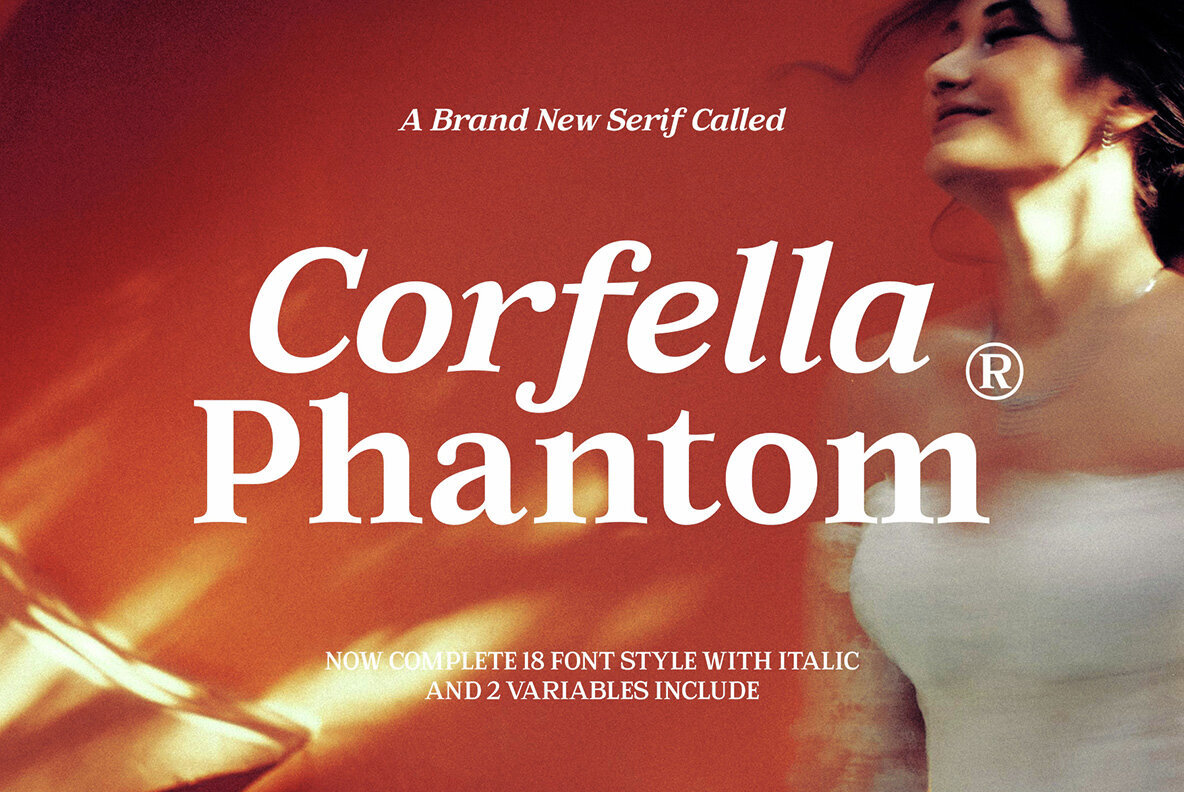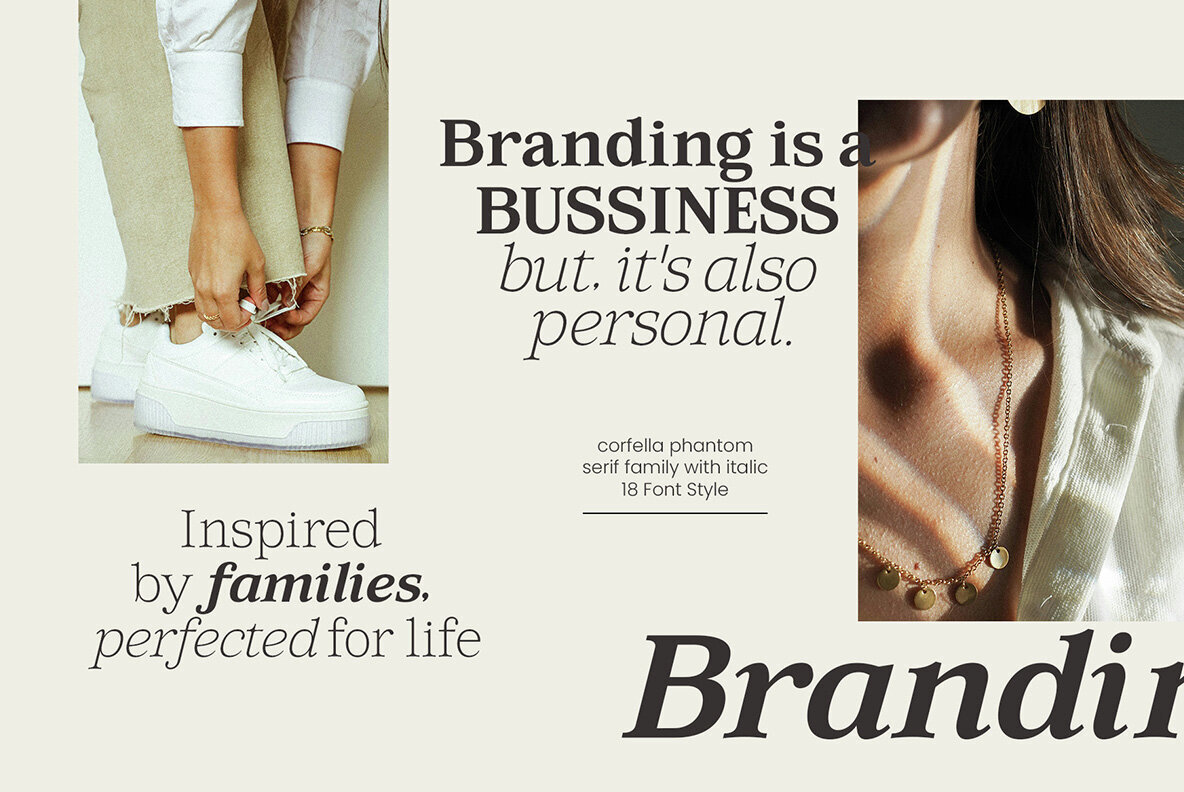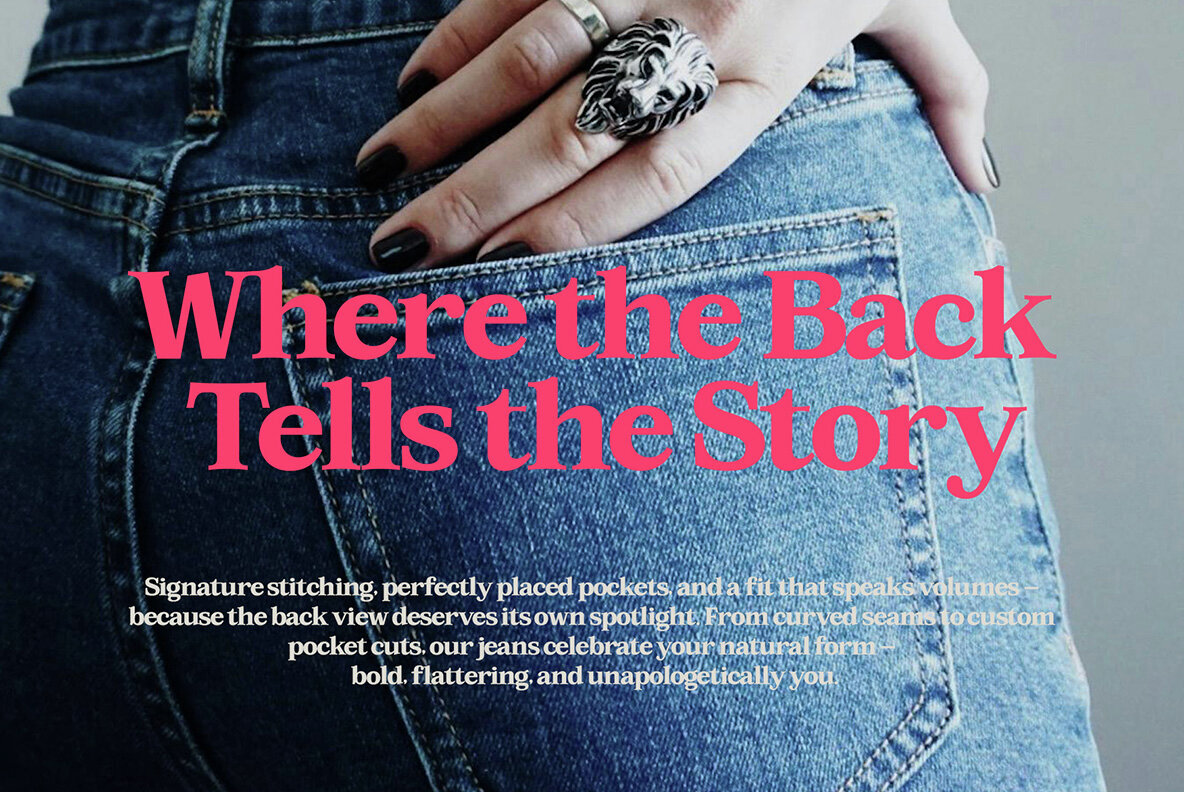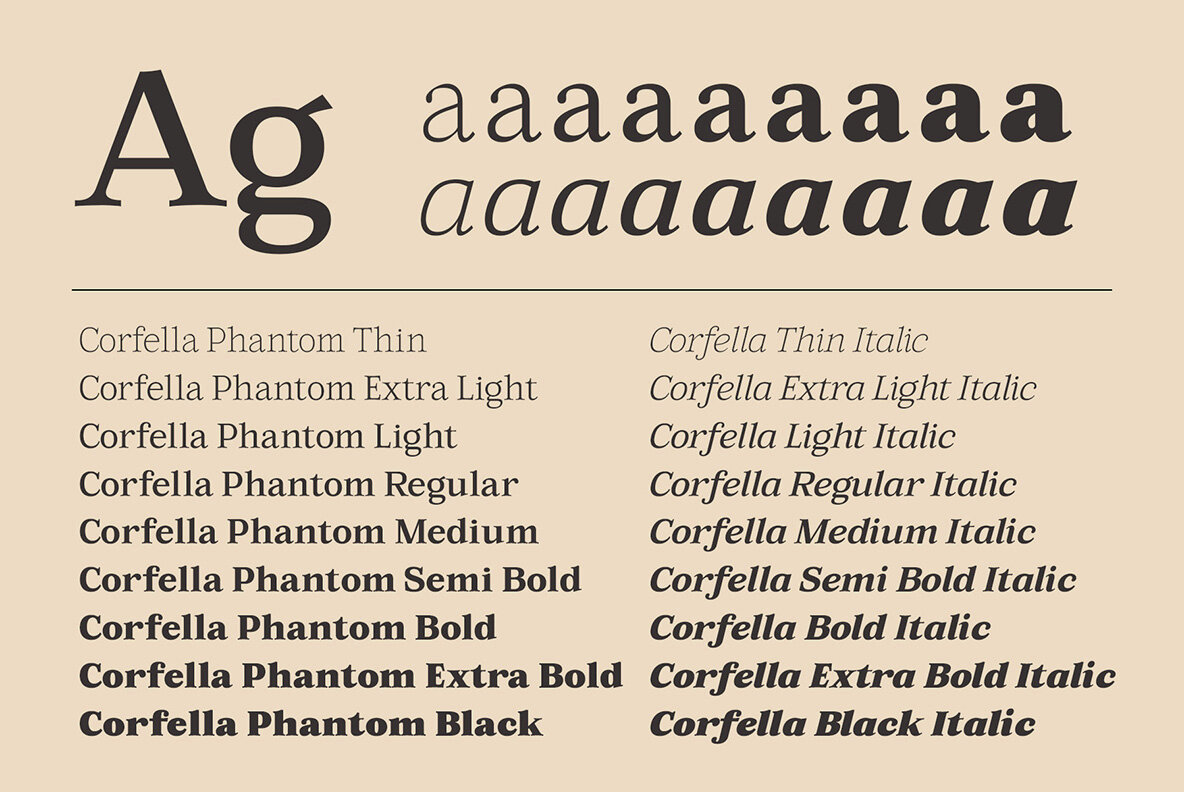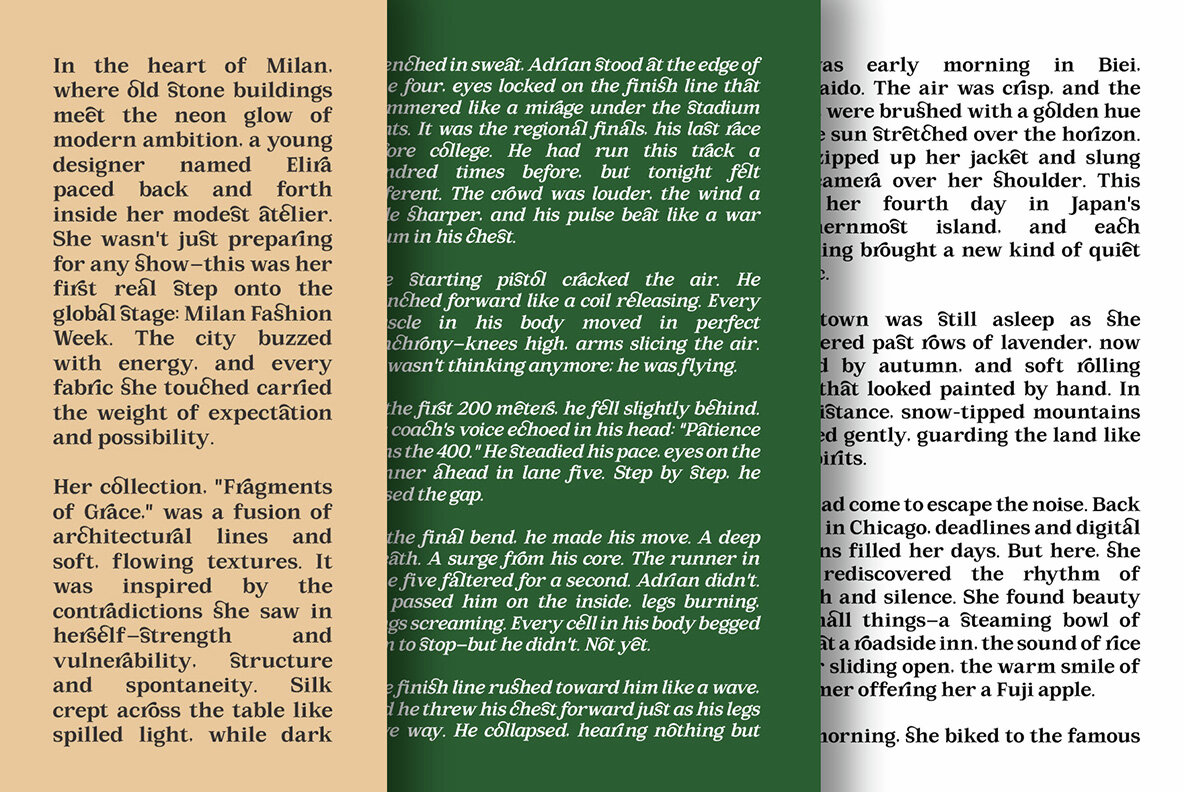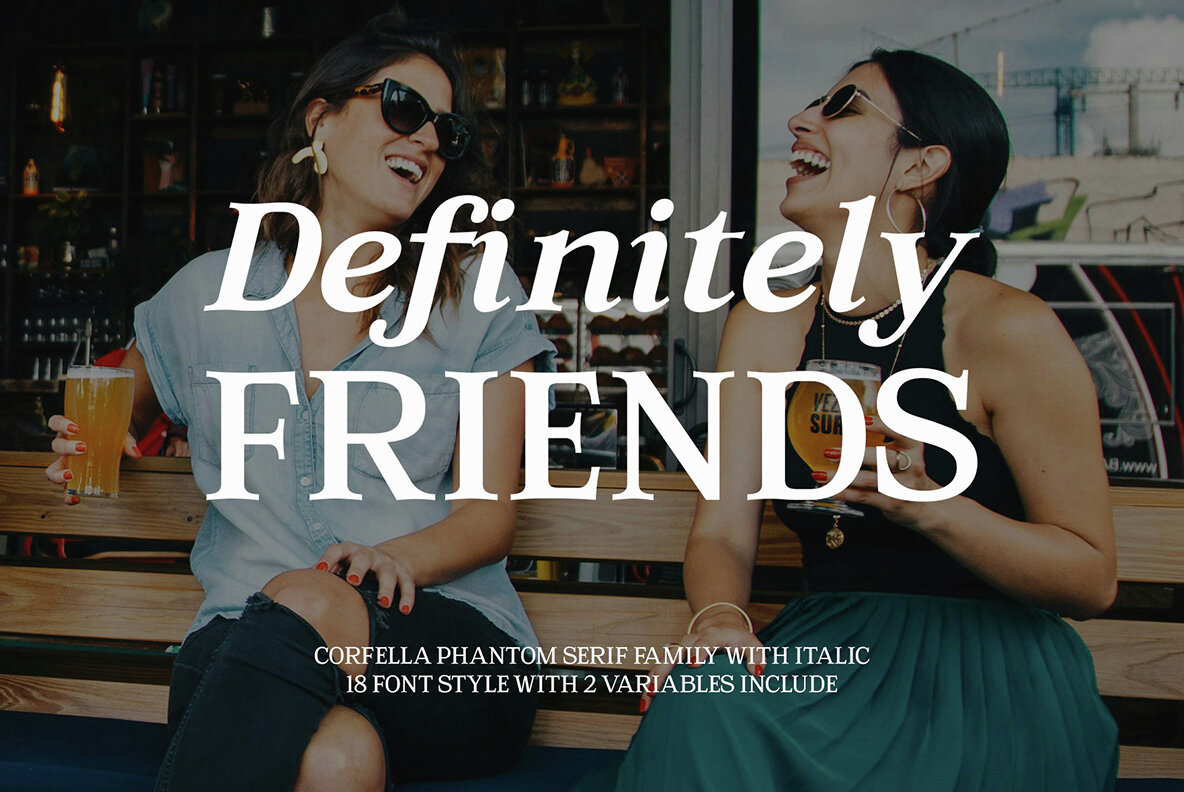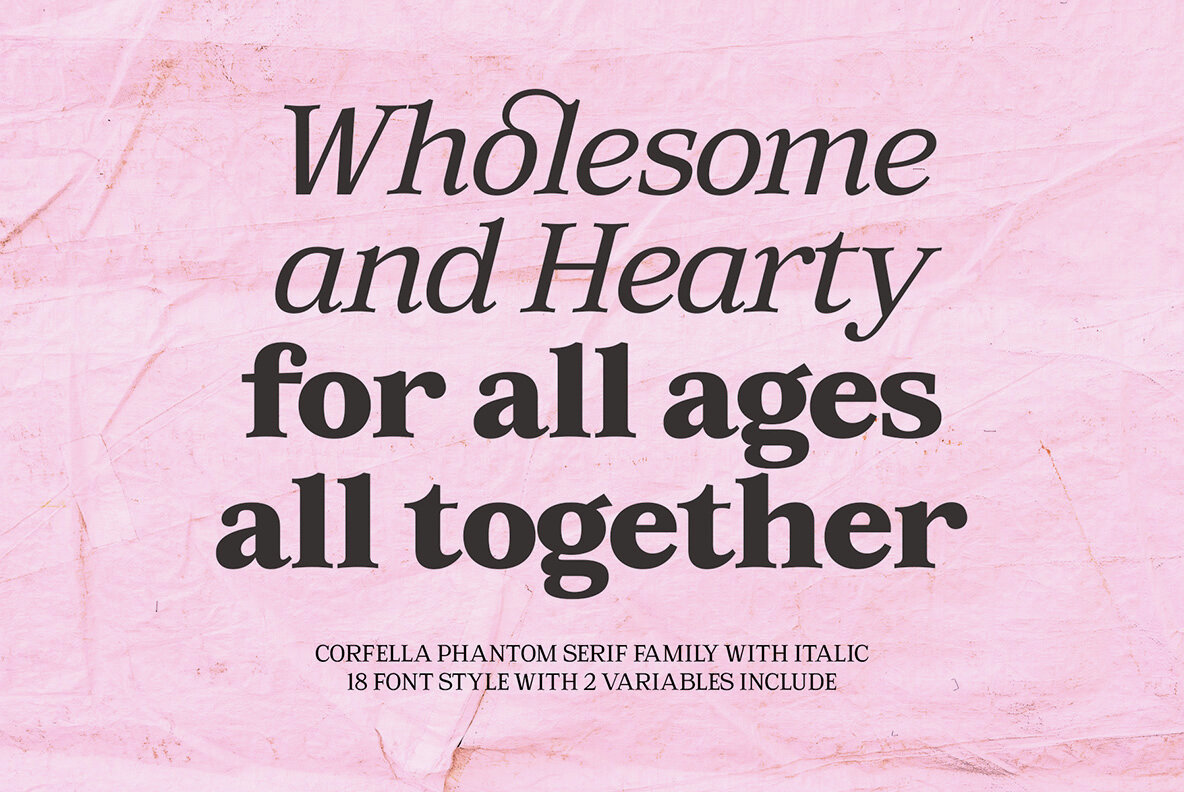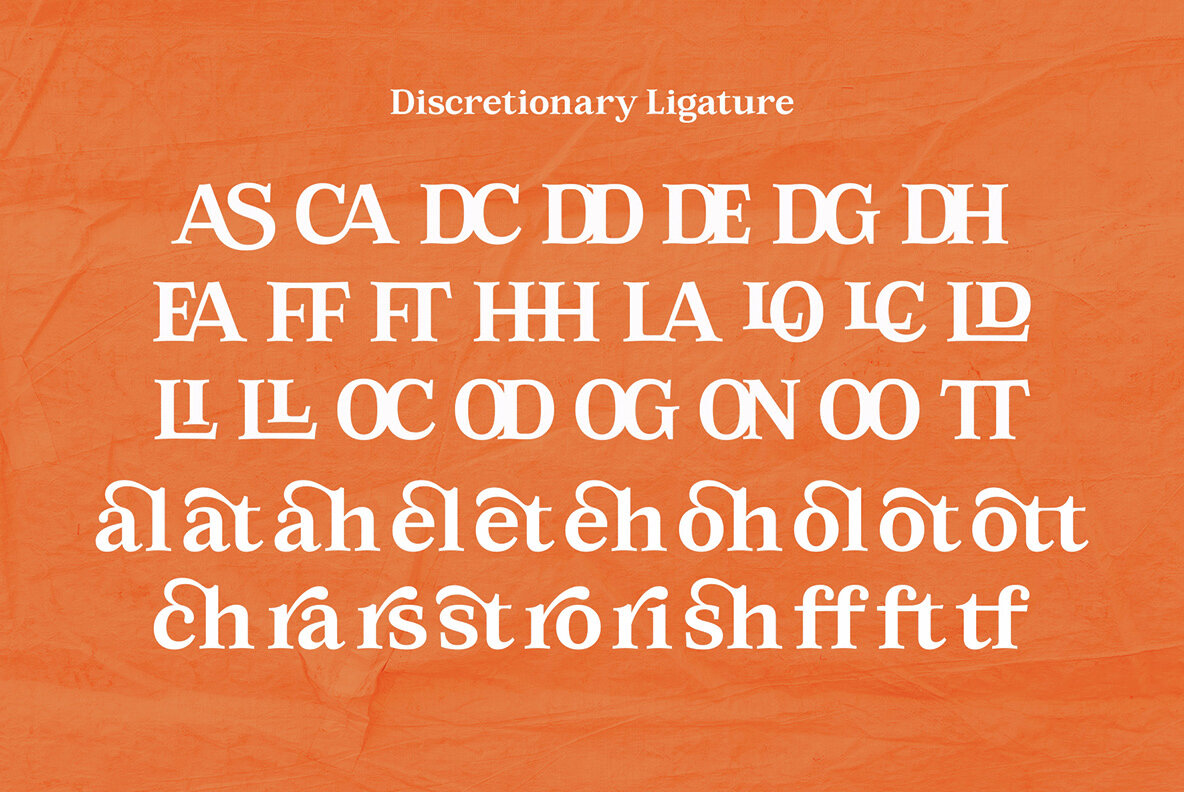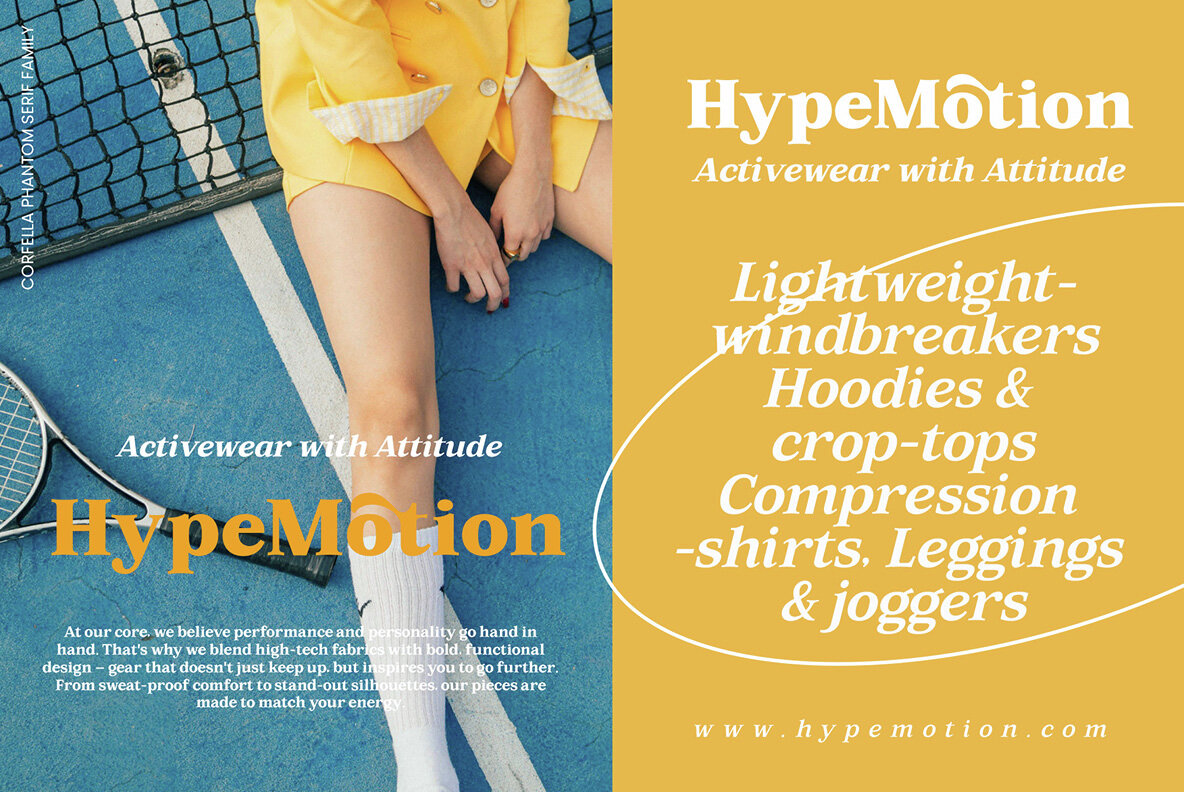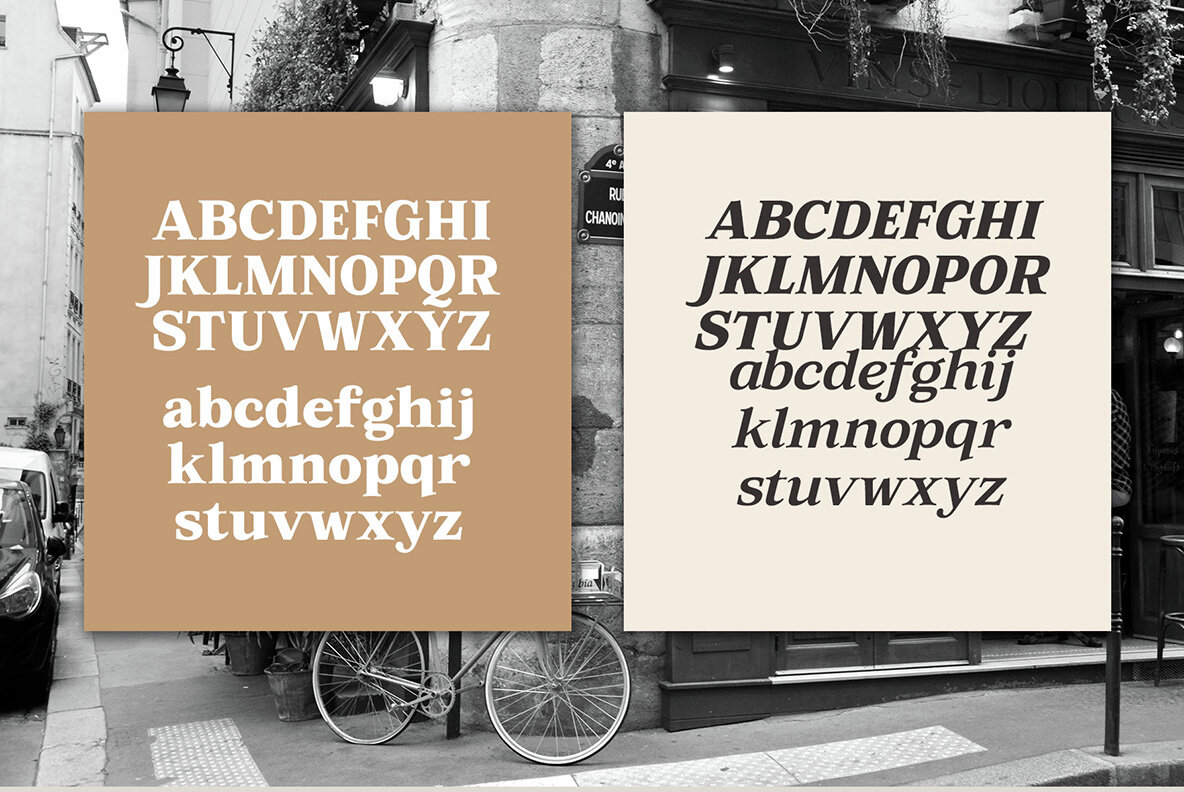
Corfella Phantom Font
The Corfella Phantom Font Family presents a timeless elegance with its 20 adaptable weights, each carefully designed to evoke the beauty and grace of nature. This serif font seamlessly serves as both a bold tool and a refined communicator in any project. Corfella Phantom features Unicode PUA encoding, ensuring full access to its comprehensive set of characters without the need for specialized design software. Mac users can utilize Font Book, while Windows users can rely on Character Map, enabling easy viewing and copying of additional characters into preferred text editors or applications. Boasting an open type character set, Corfella Phantom offers a plethora of symbols, punctuation, and both standard and optional characters. This makes it a robust choice for projects of any magnitude.Corfella Phantom: An Elegant Serif Font Family